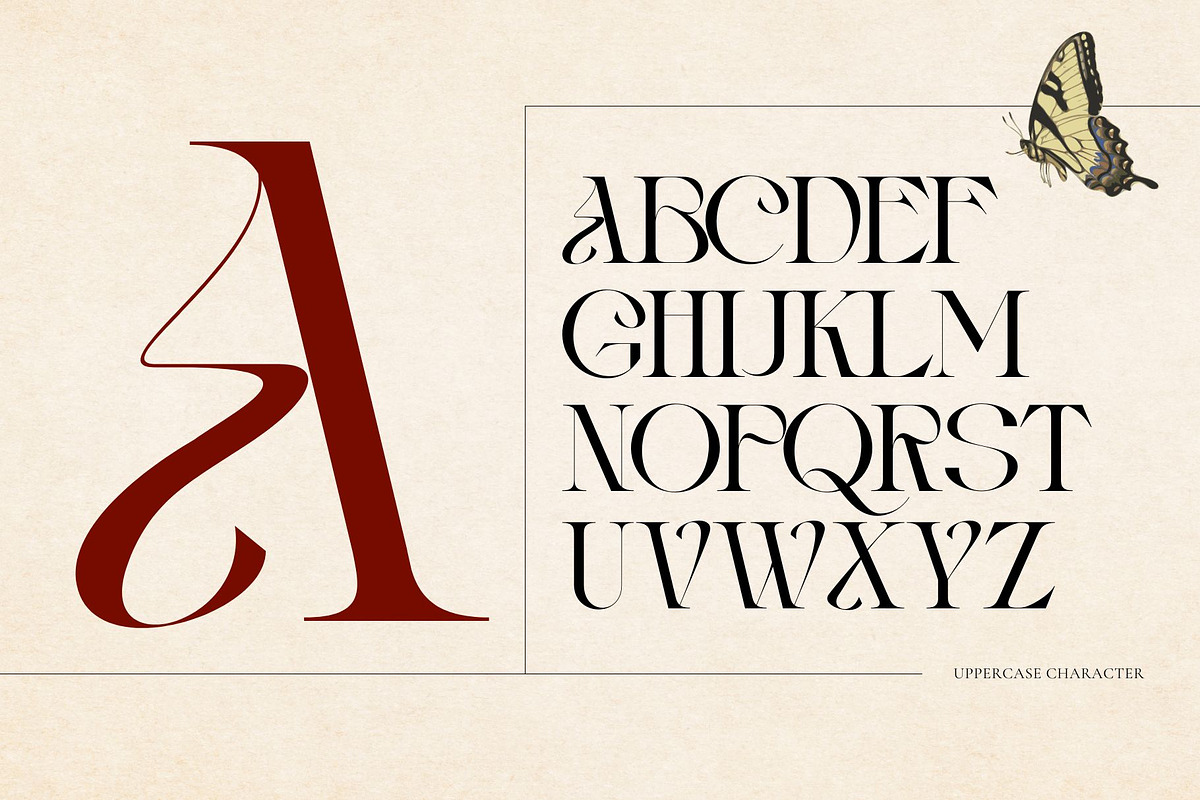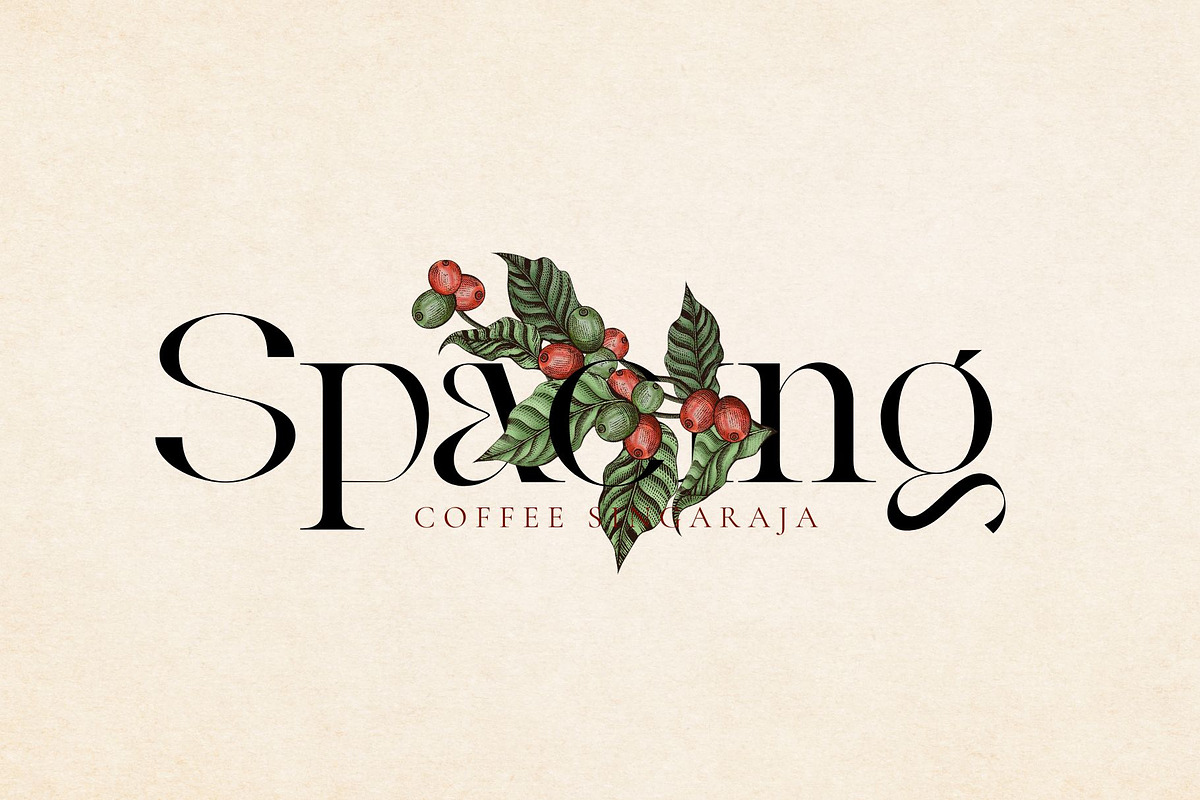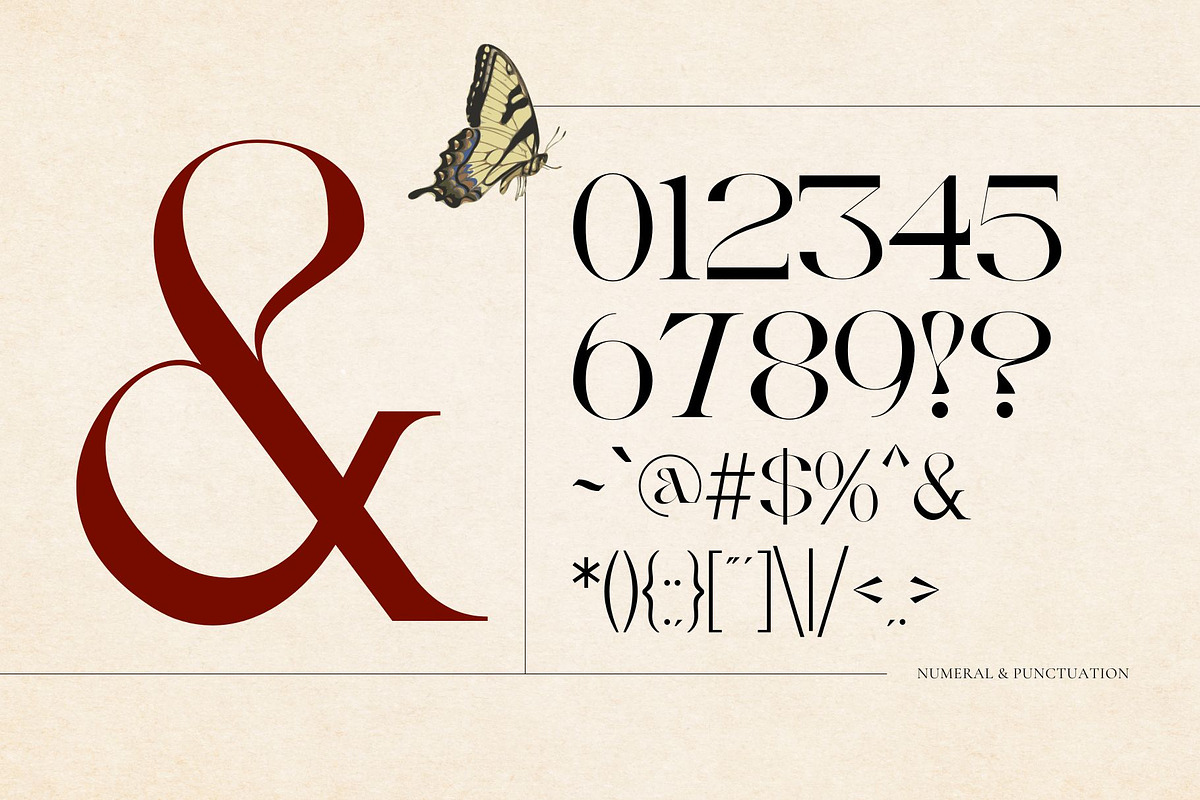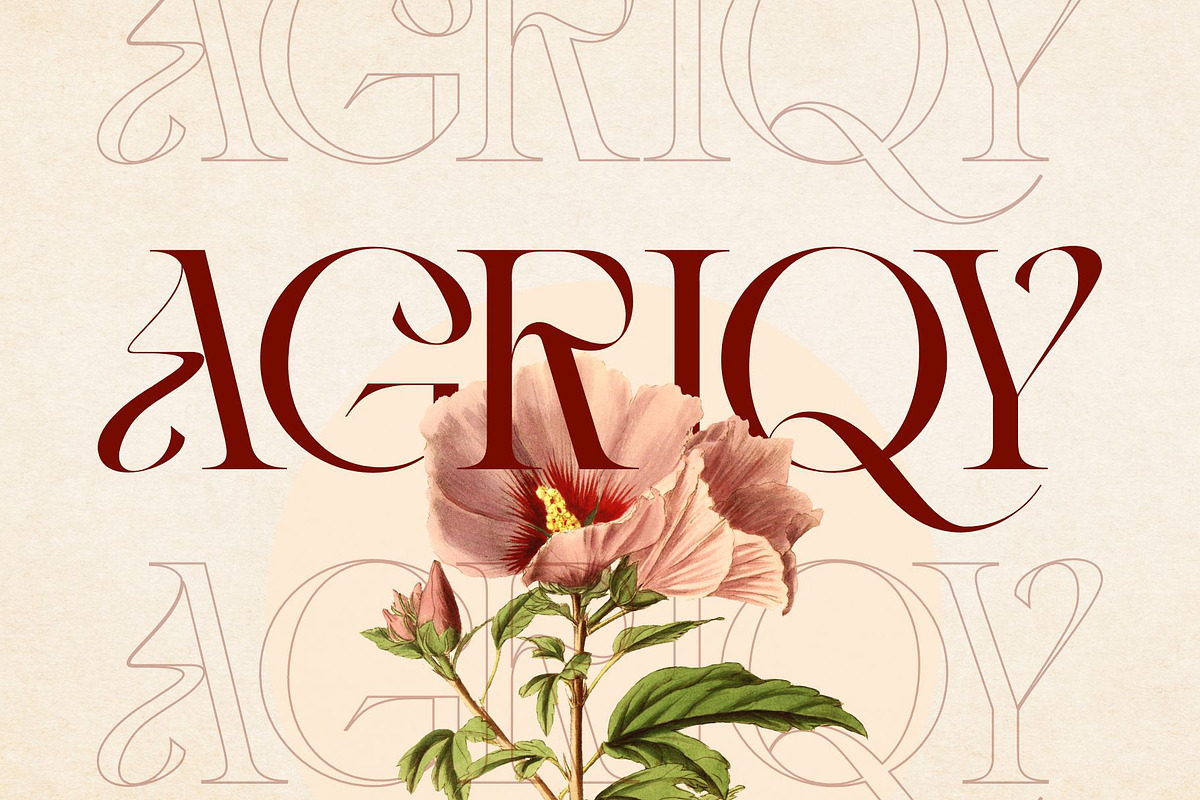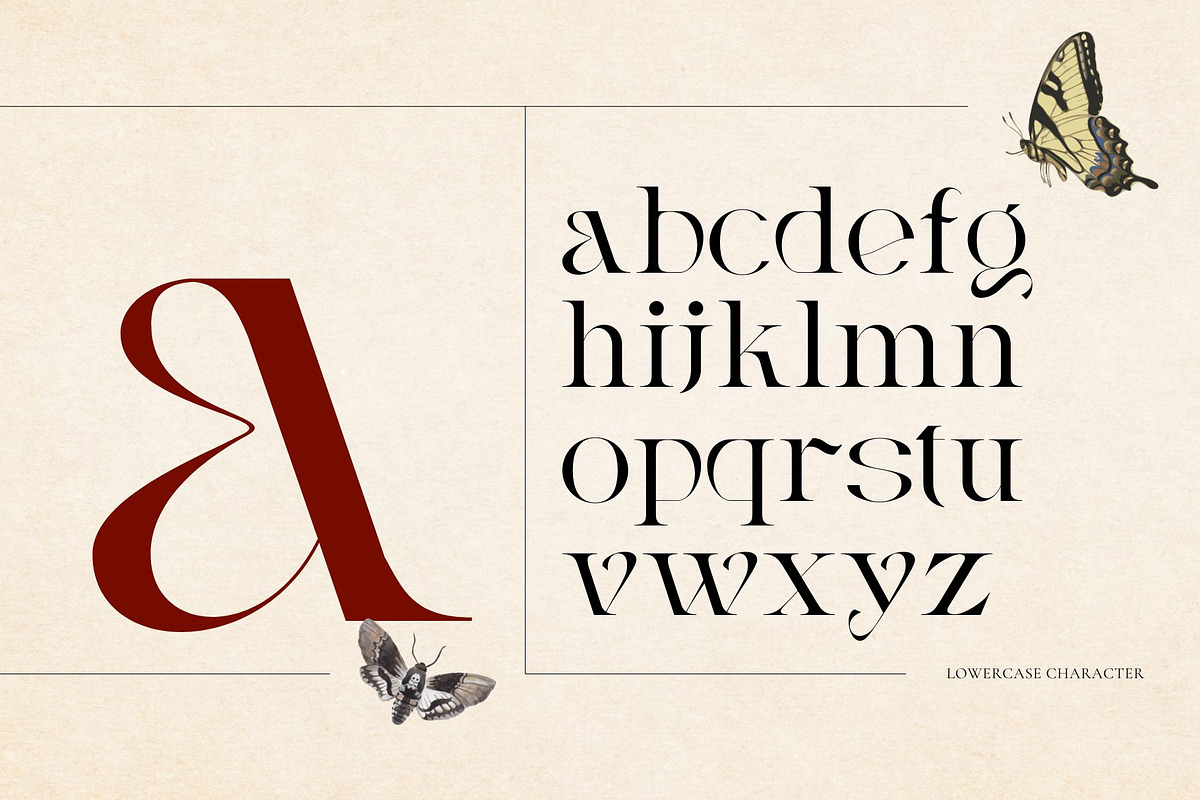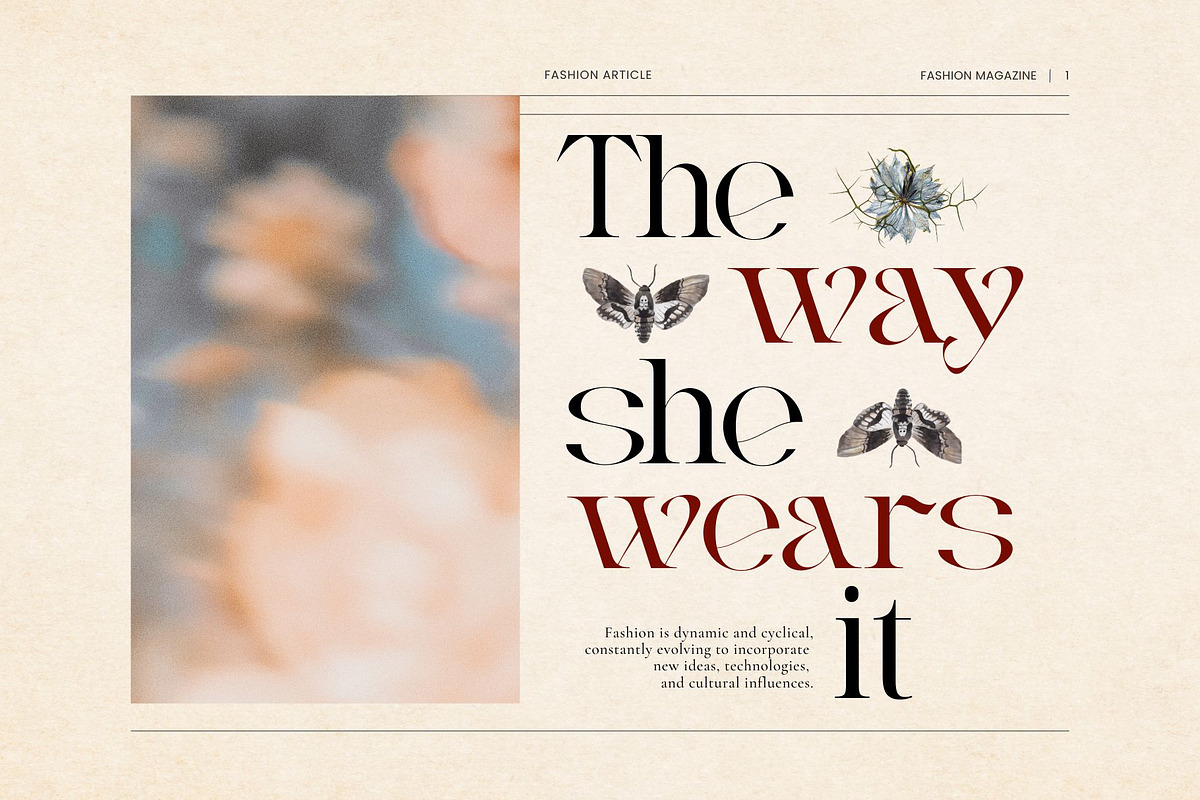
Vintage Agriqy - Modern Logo Serif
Vintage Agriqy - Serif Font
Vintage Agriqy - Serif Font offers beautiful typographic harmony for a diversity of design projects, including logos & branding, social media posts, advertisements & product designs.